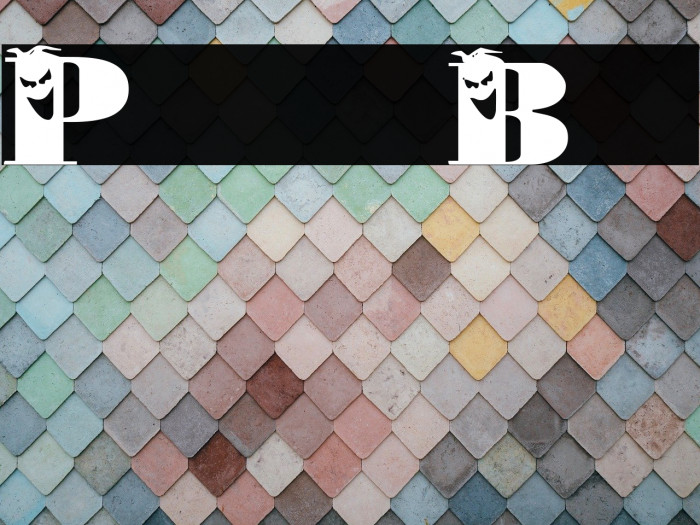
PhilliBoo Font
This font features a bold and dramatic style with unique decorative elements incorporated into each letter. The uppercase letters are adorned with intricate, whimsical designs that give the font a playful and eye-catching appearance. The overall structure is solid and robust, making it stand out in any design. The font's artistic flair is evident in the way each character is crafted, with a consistent use of embellishments that add a touch of fantasy and creativity. This font is perfect for projects that require a bold statement and a touch of uniqueness.
A bold, decorative font with whimsical embellishments.
- Proposed Projects: Ideal for posters, book covers, event invitations, and branding that requires a bold and artistic touch.